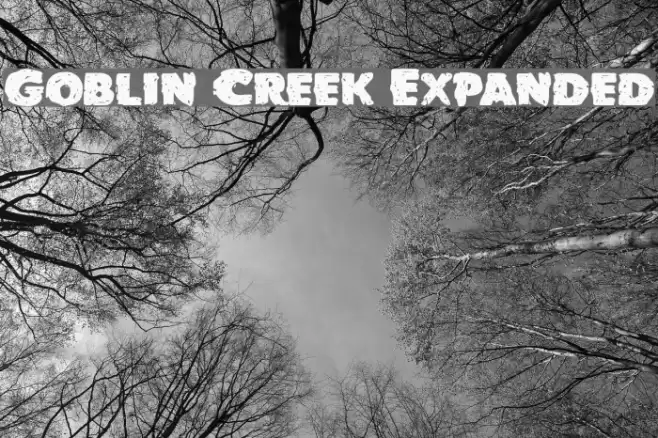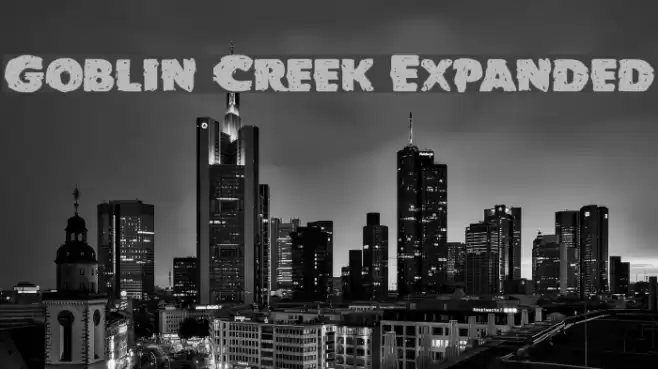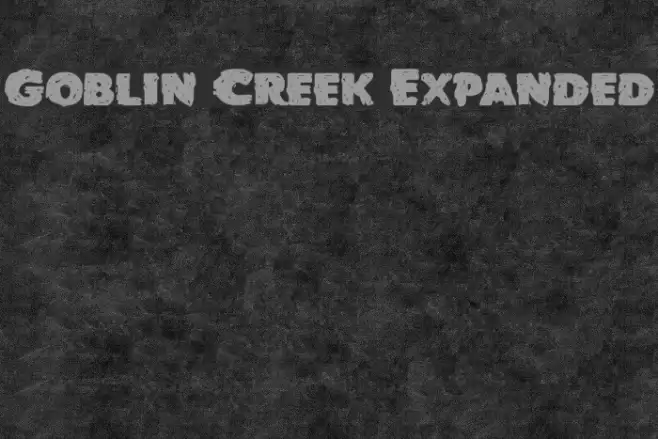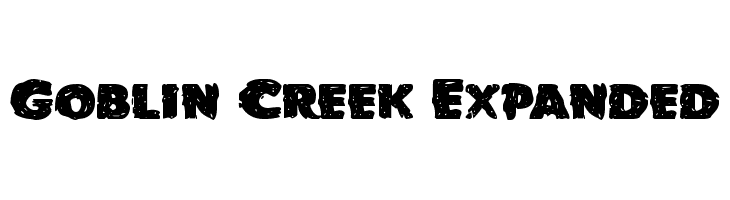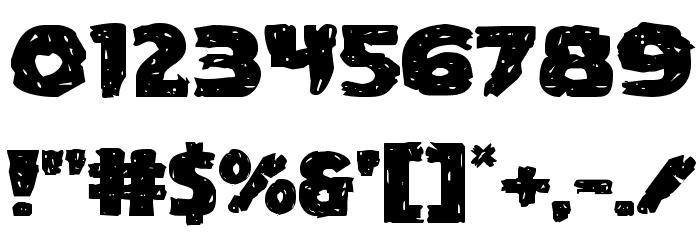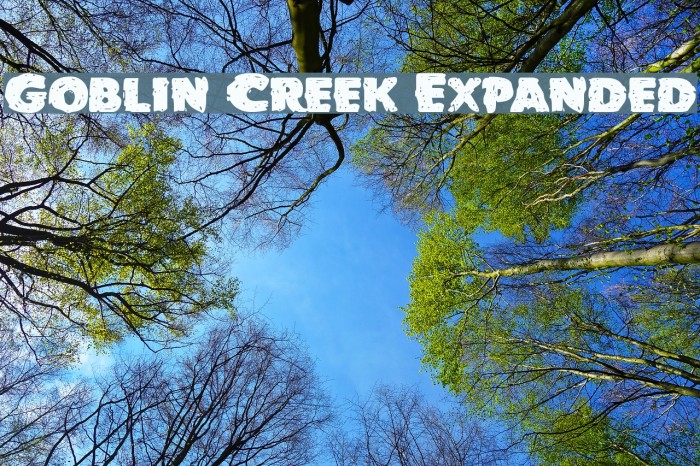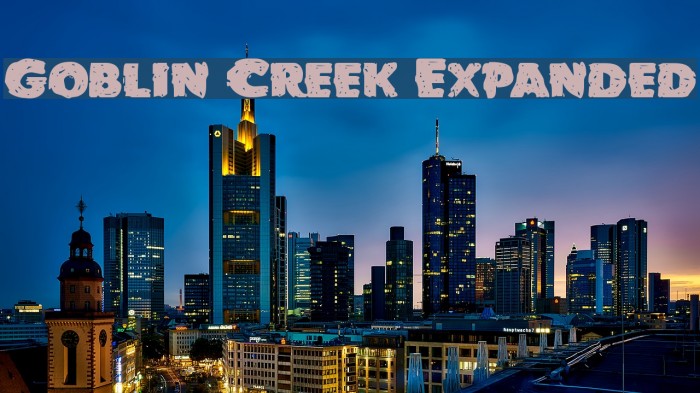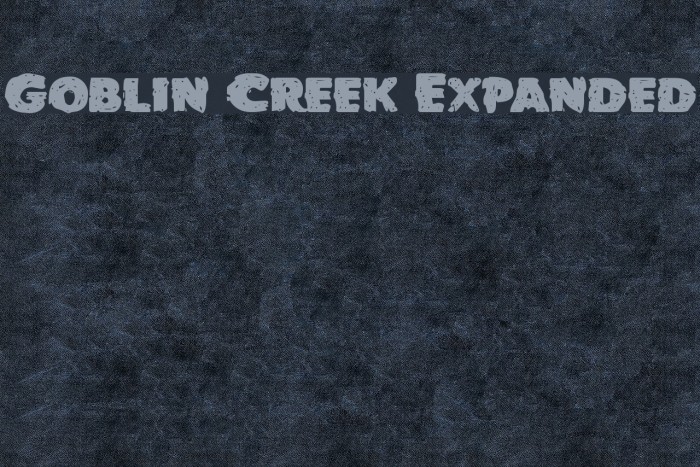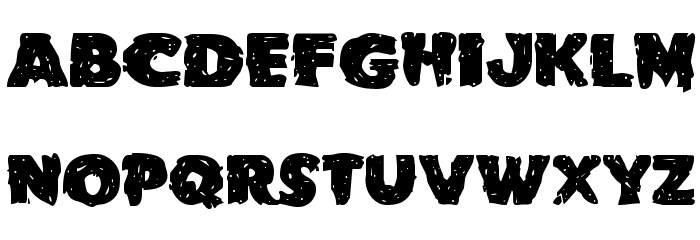
Goblin Creek Expanded Font
Goblin Creek Expanded Description
This font features a bold and playful design with a distressed texture that gives it a rugged, hand-crafted appearance. The characters are wide and heavily stylized, with irregular edges and a chunky form that adds to its unique personality. The uppercase and lowercase letters maintain a consistent style, while the numbers and special characters are equally bold and distinctive. This font's design is reminiscent of a whimsical, adventurous theme, making it ideal for creative projects that require a touch of fun and originality.
A bold, distressed font with a playful, rugged style from Horror fonts.
- Proposed Projects: Perfect for Halloween-themed designs, fantasy book covers, adventure game titles, or any project needing a quirky, bold typeface.
- Use Case: Headlines, Posters, Logos